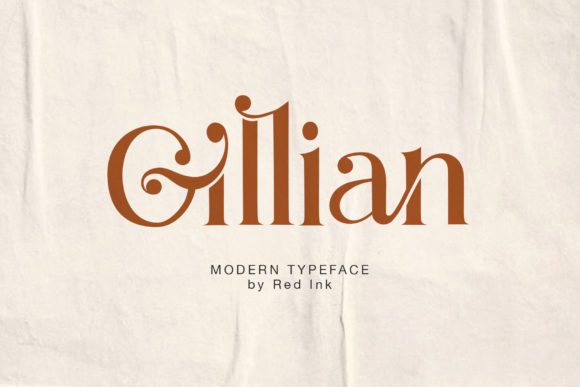
Journey into the realm of elegance and sophistication with Gillian Font, a captivating serif font crafted by the ingenious minds at Red Ink. This visual masterpiece exudes grace and charm, possessing a refined structure characterized by sweeping curves and delicate lines.
Unleash your creative vision and let Gillian Font breathe life into your fashion website. Its inherent elegance effortlessly elevates the aesthetics of any design, evoking a sense of luxury and refinement. Whether you seek to craft captivating logos, alluring product descriptions, or enthralling social media posts, Gillian Font will elevate your content to unparalleled heights.
Immerse yourself in a world of endless possibilities as you wield Gillian Font to create captivating editorial designs. Its timeless appeal effortlessly complements fashion magazines, enticing brochures, and captivating advertisements. Let your words dance upon the page, imbued with an allure that captivates your audience and leaves them yearning for more.
Gillian Font possesses an uncanny ability to transform ordinary words into captivating narratives. Its inherent versatility extends to branding projects, where it effortlessly lends its charm to logos, business cards, and marketing materials. With Gillian Font as your creative ally, you can establish a brand identity that radiates professionalism and sophistication, leaving a lasting impression on your clientele.
Indulge in the beauty and grace of Gillian Font and unlock a world of creative possibilities. Its timeless essence and unparalleled elegance will empower you to craft designs that resonate with your audience, leaving them captivated and inspired. Embrace the allure of Gillian Font and embark on a journey of creative expression that knows no bounds.